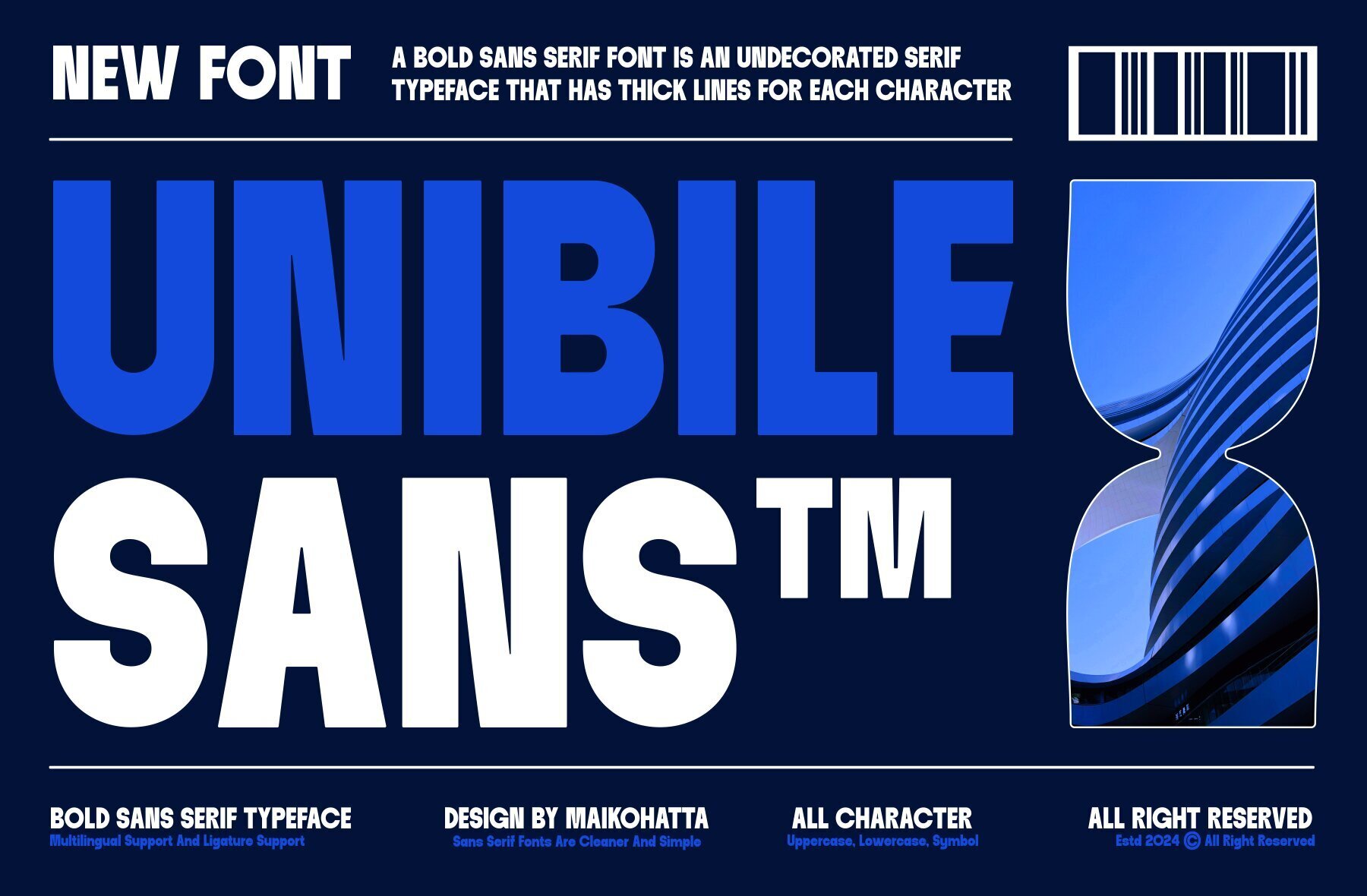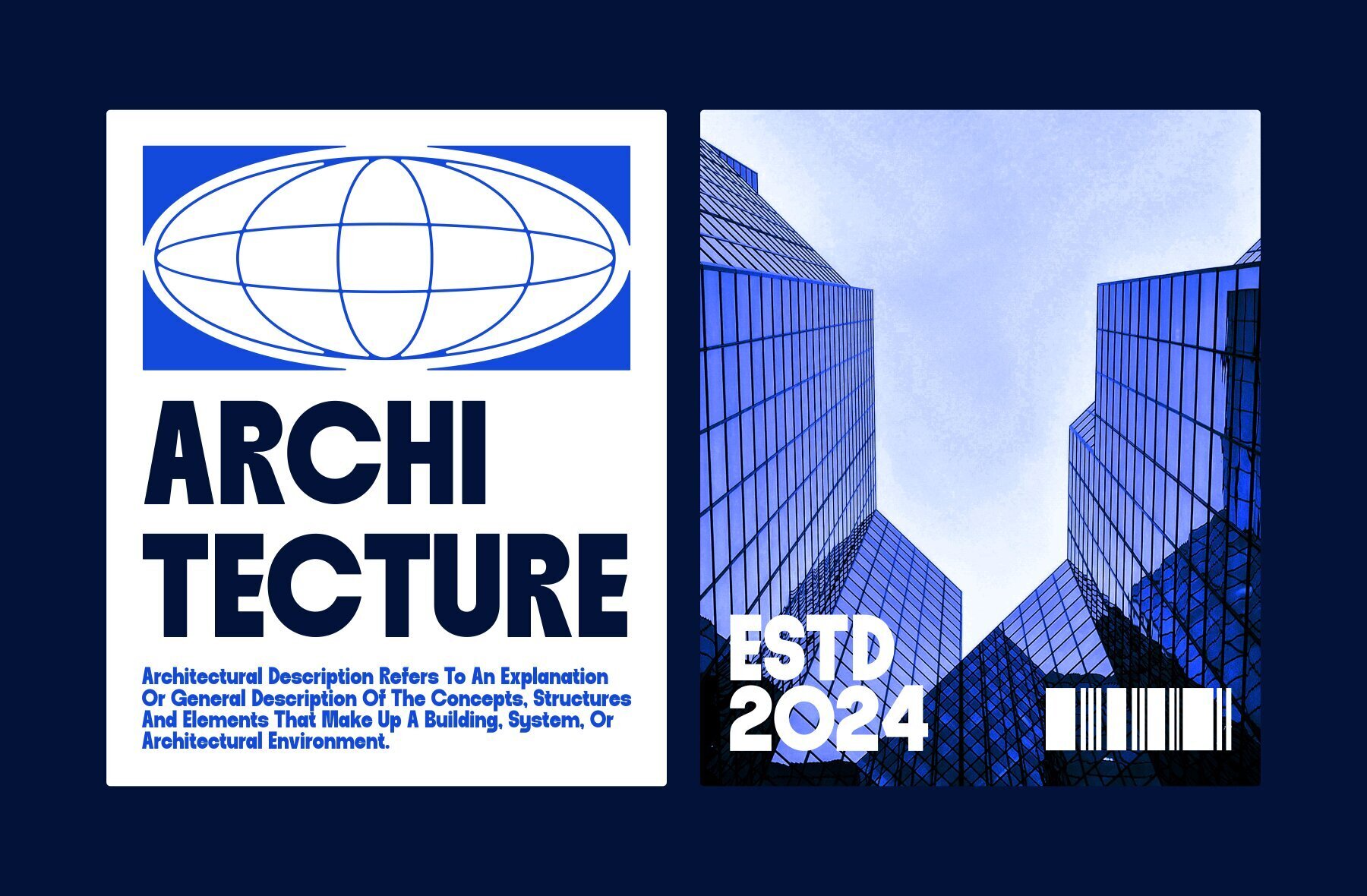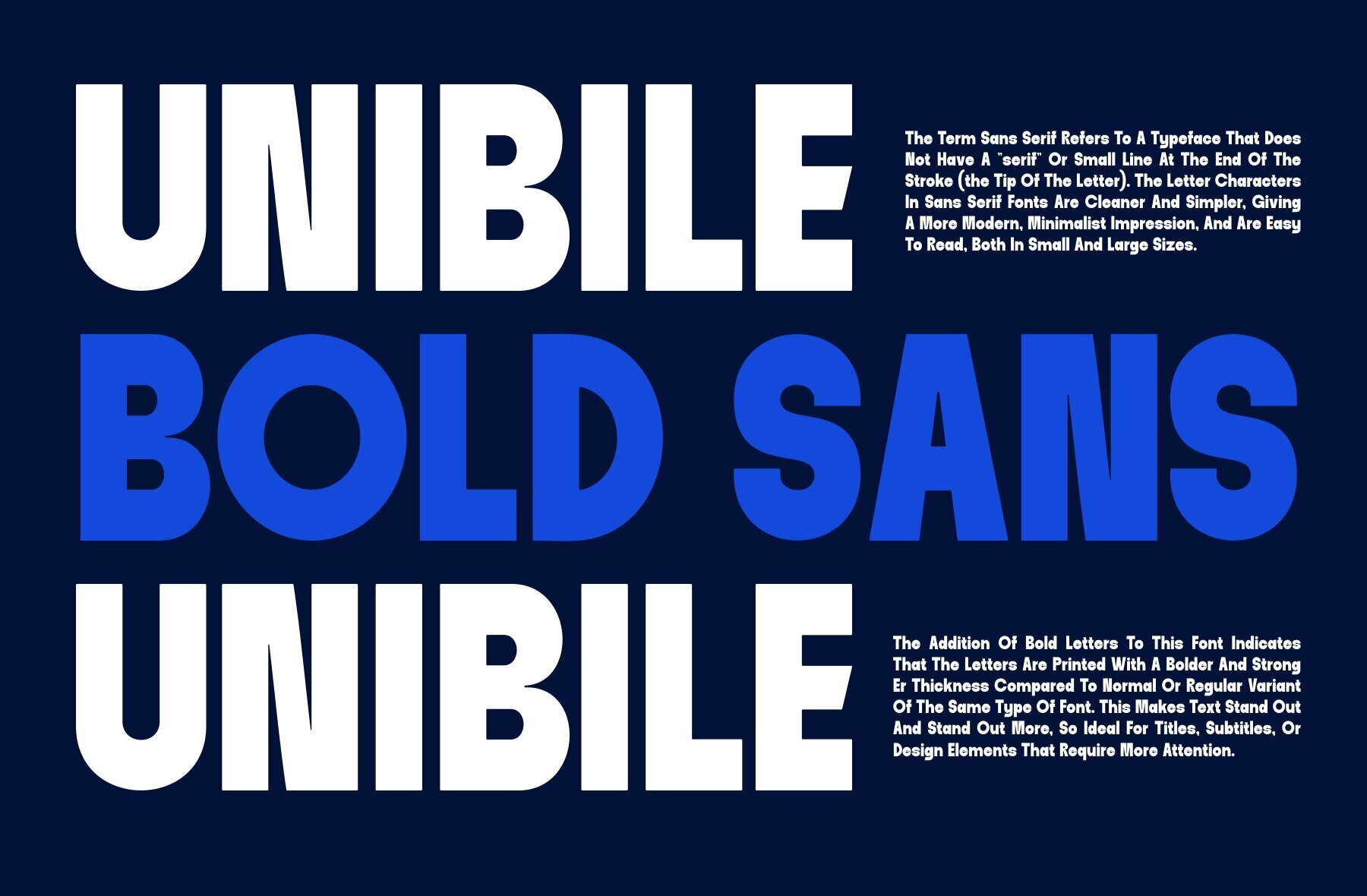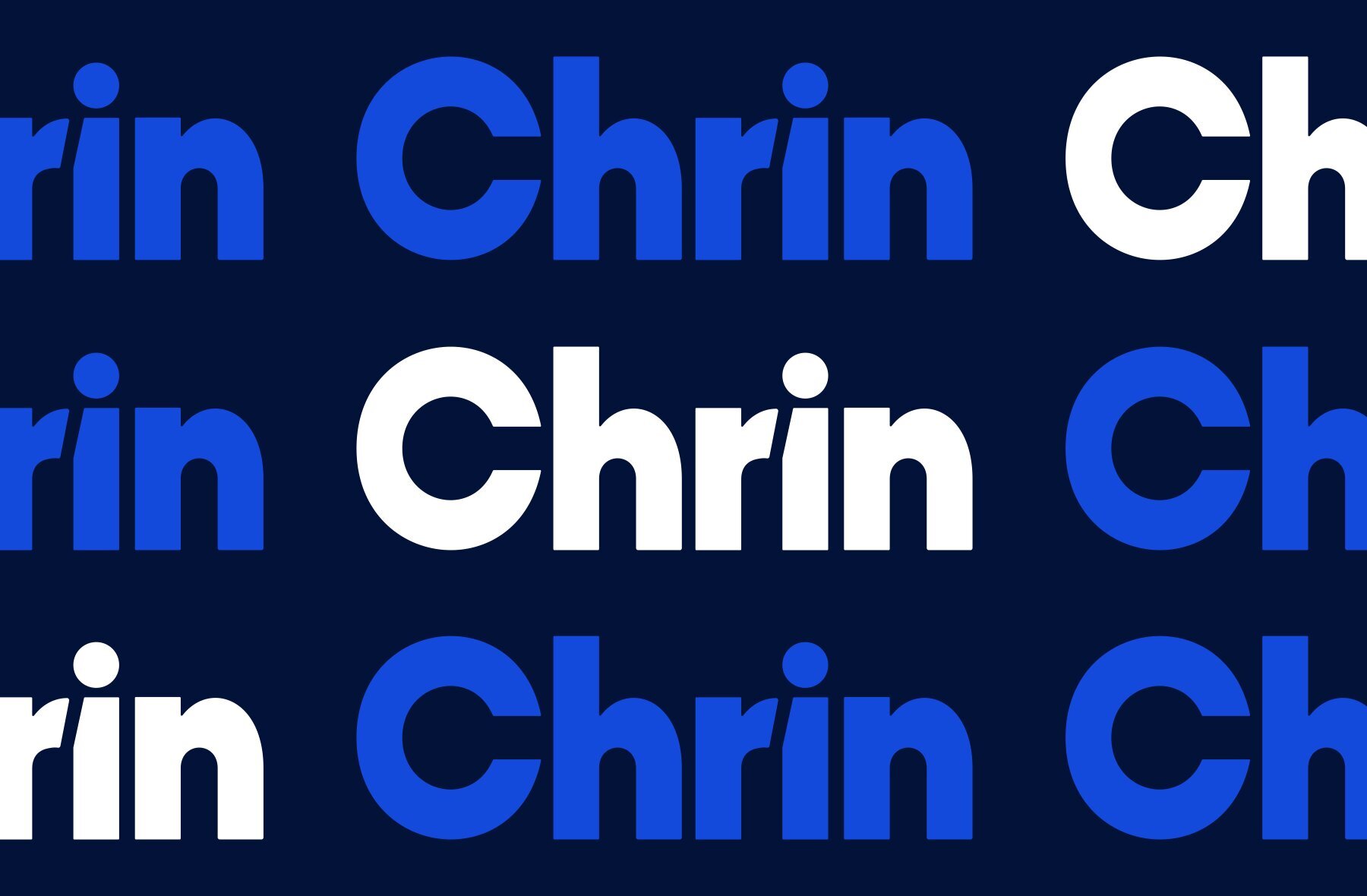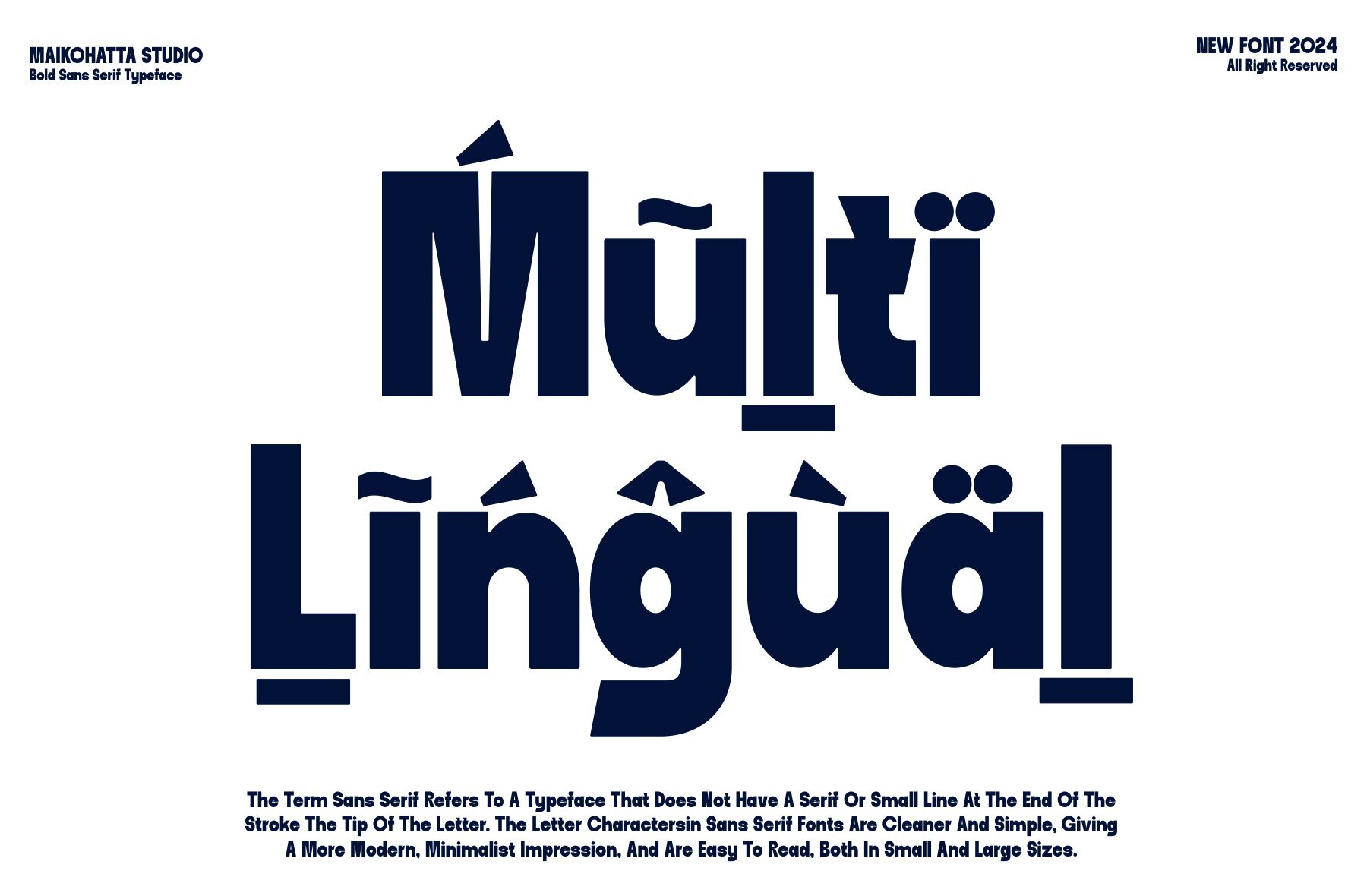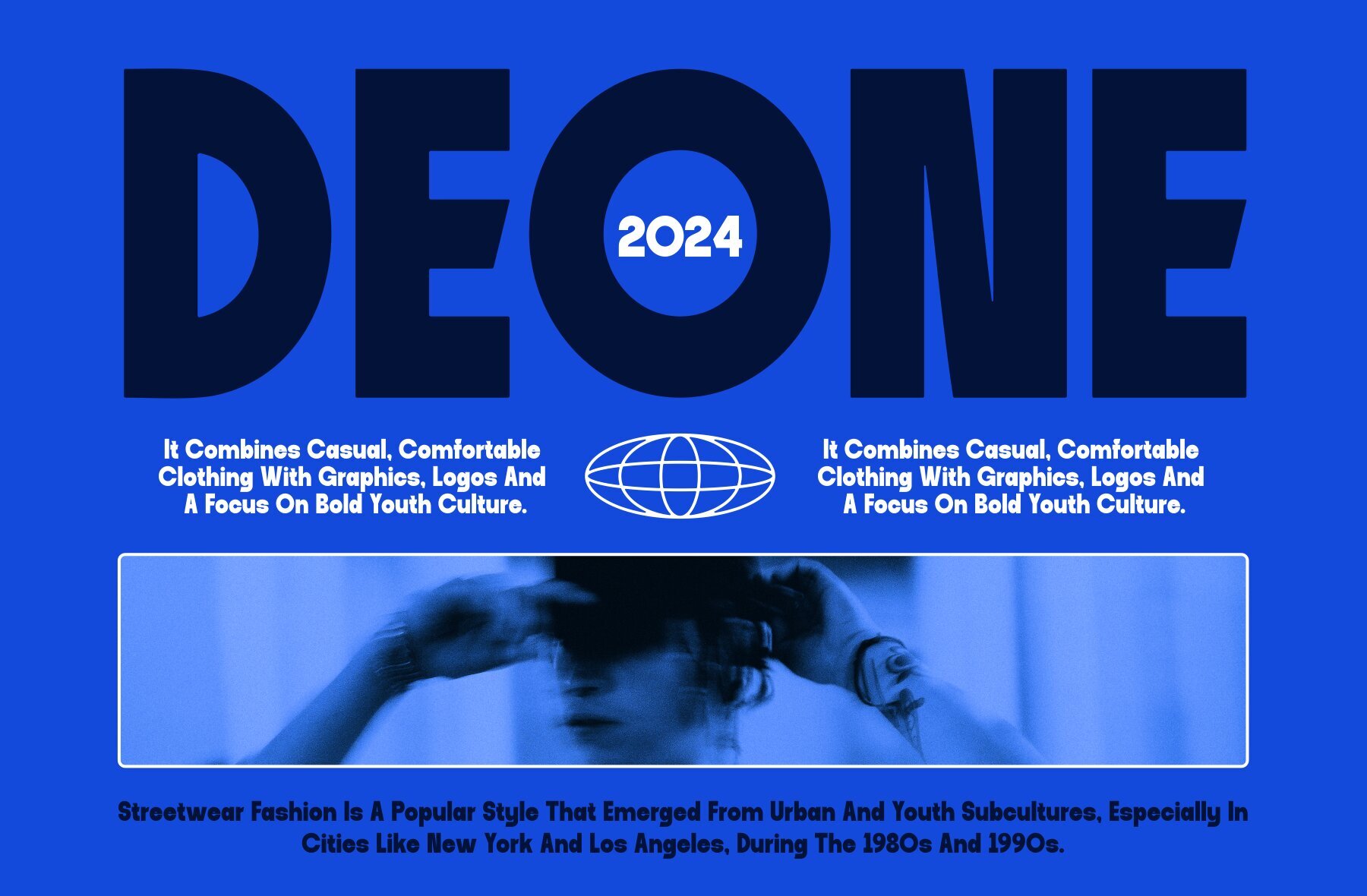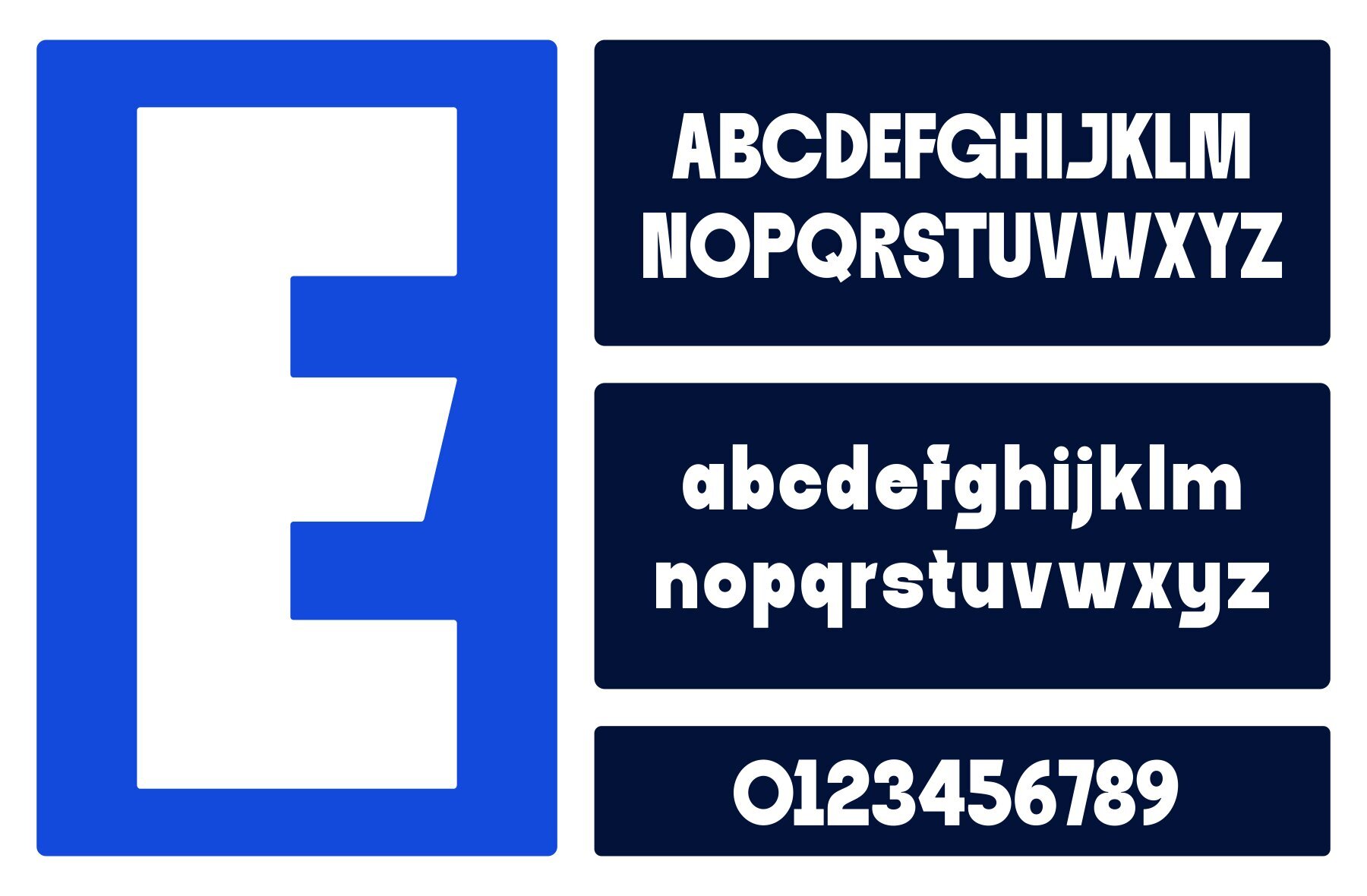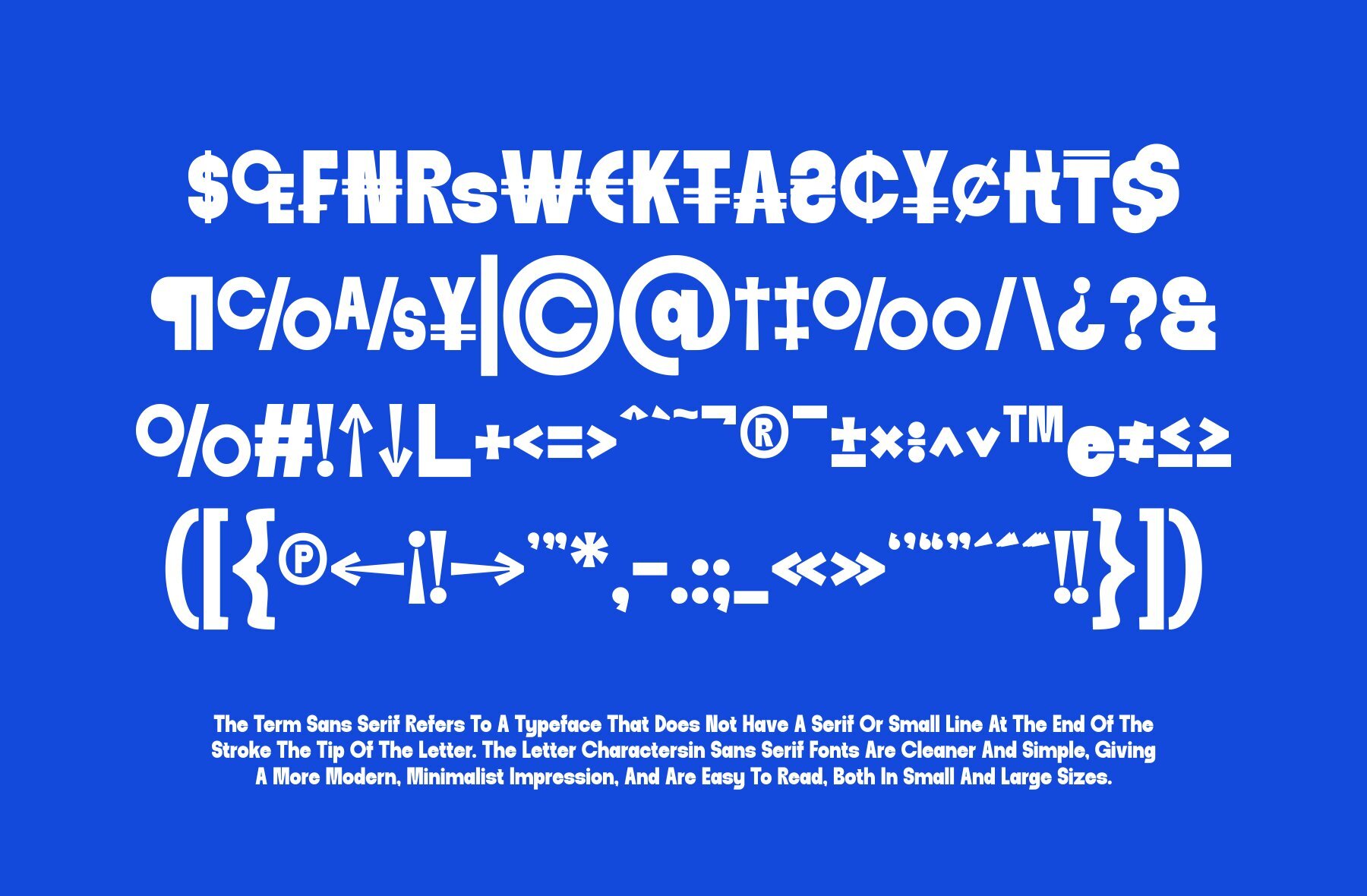
Unibile Font
UNIBILE
This bold, geometric sans-serif font is perfect for modern branding, editorial headlines, and minimalist design projects. Its clean and uniform letterforms make it an ideal choice for impactful and graphic design elements in any contemporary context. Suitable for designers looking to make a bold statement with clarity and precision.